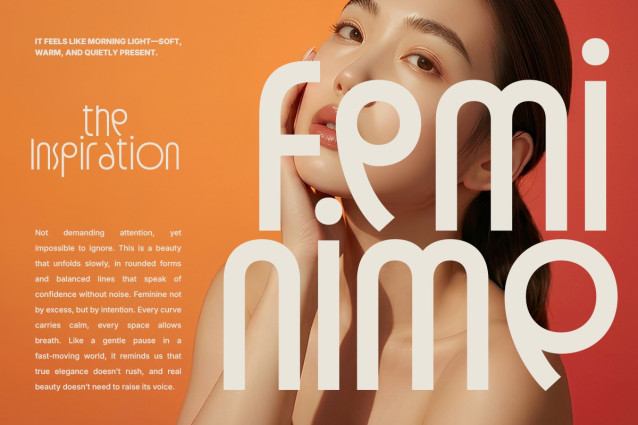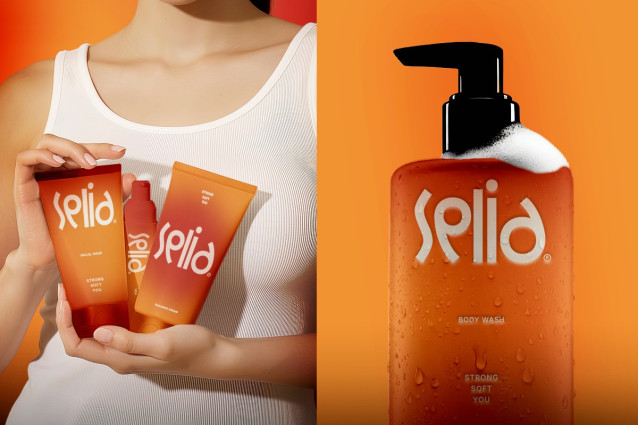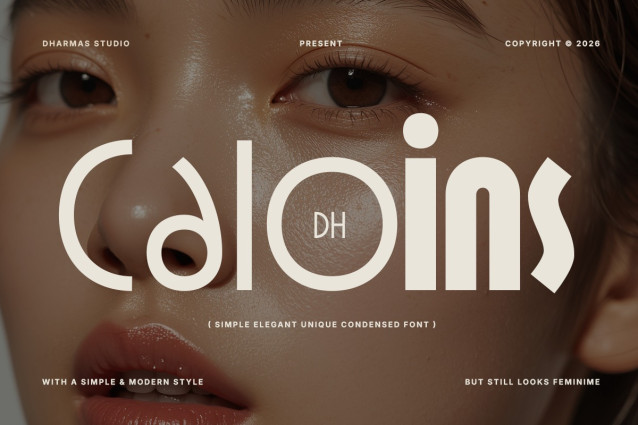
Dh Caloins Font
Dh Caloins Font is an elegant modern typeface family designed to bring a refined, graceful, and sophisticated touch to your typography. With its smooth curves and distinctive letterforms, this font creates a stylish and expressive look that works beautifully for beauty brands, fashion designs, editorial layouts, and premium branding projects.
This type family comes with 8 styles: Thin, Extra Light, Light, Regular, Medium, Semi Bold, Bold, and Extra Bold, making it highly versatile for both headlines and supporting text. Dh Caloins also includes 55+ alternates and ligatures, variable font support, and a Type Specimen PDF, giving you flexibility to explore different typographic styles and creative compositions.
Perfect for beauty branding, cosmetics packaging, fashion logos, editorial titles, magazine layouts, luxury branding, social media designs, and modern advertising.